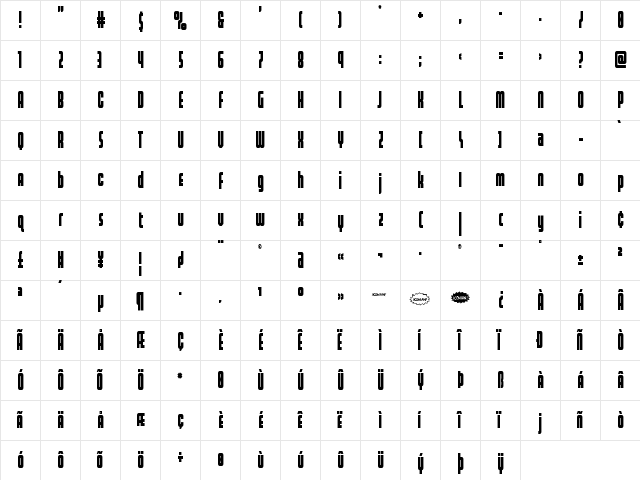
Homelander Condensed Regular
Design Context for Homelander Condensed Typeface
Homelander Condensed is a composed and adaptable typeface that performs quietly and consistently across a wide range of design contexts. The condensed width makes it efficient for tight spaces without sacrificing legibility.